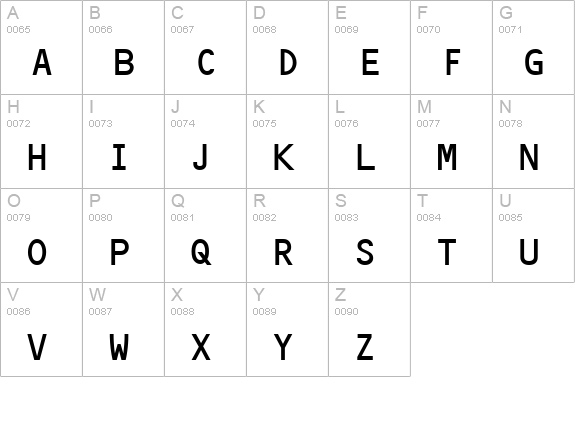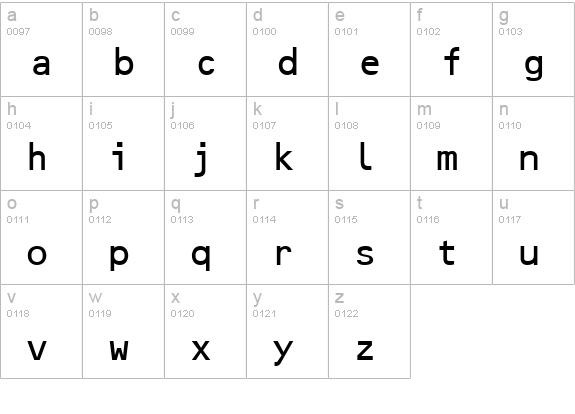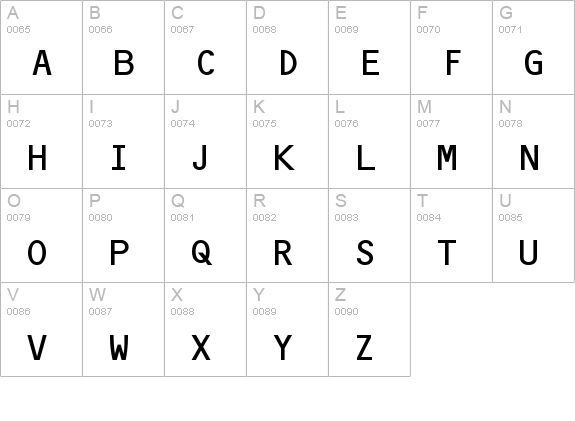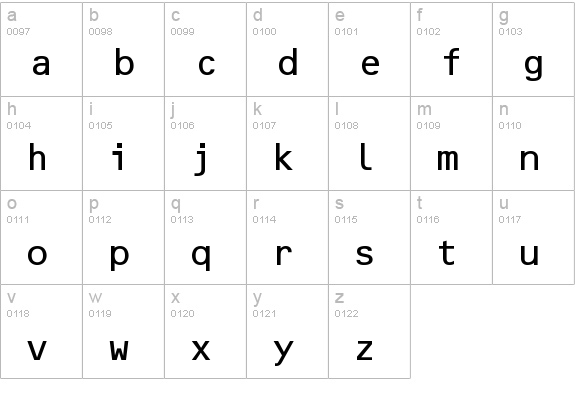
OCRBLetM Font Details
OCRBLetM is a versatile and modern font that combines the classic elements of OCR (Optical Character Recognition) with a sleek and contemporary design. This font is perfect for projects that require a clean and professional look, such as resumes, reports, and presentations. Featuring clear and easily readable characters, OCRBLetM is suitable for both print and digital applications. Its bold and distinctive style makes it stand out while maintaining readability, making it a great choice for headlines and titles. Best of all, OCRBLetM is available for free download at FontsMarket.com. Whether you're a student working on a project or a professional looking for a fresh font to enhance your designs, OCRBLetM is a fantastic option that won't break the bank. Download it today and elevate your projects with this stylish and versatile font.